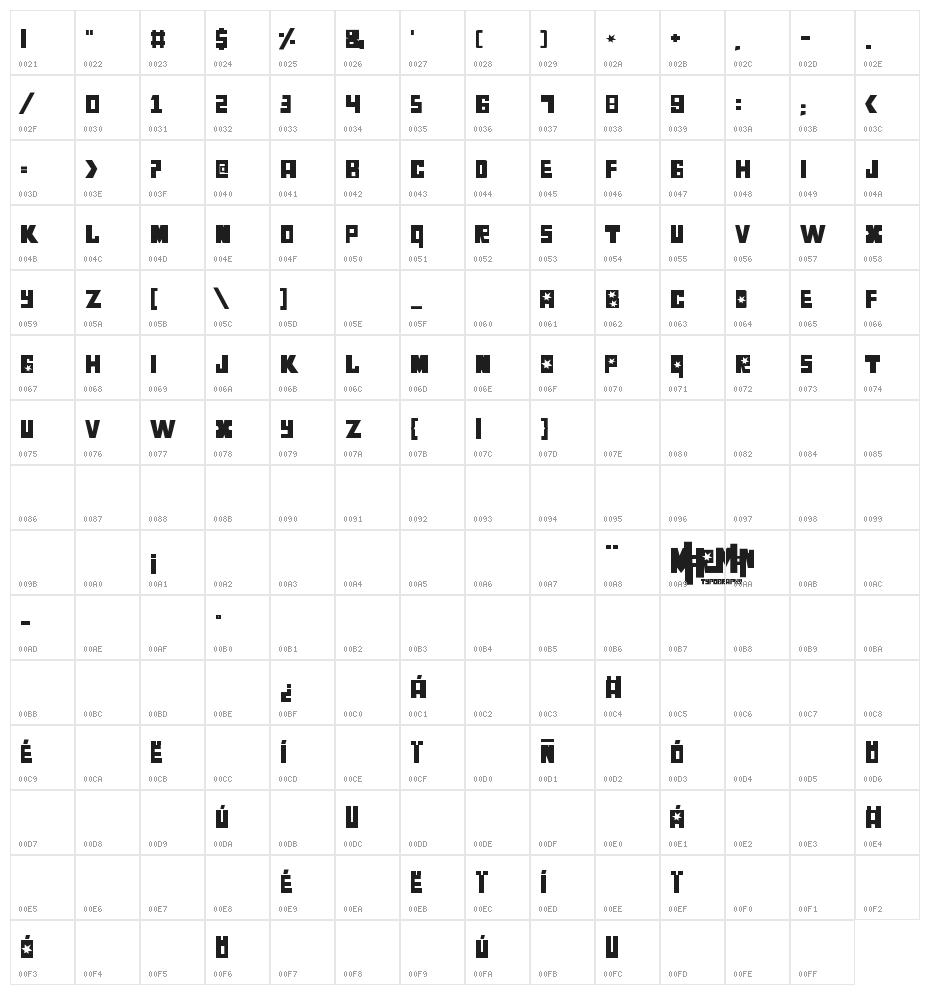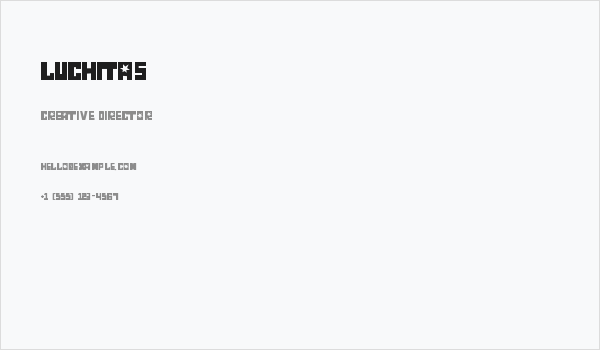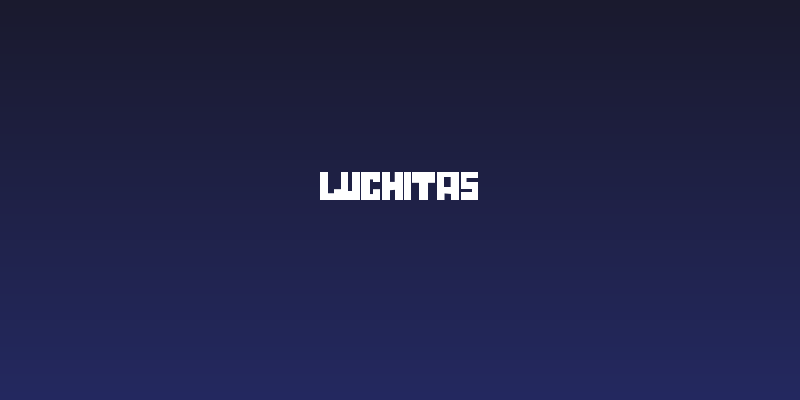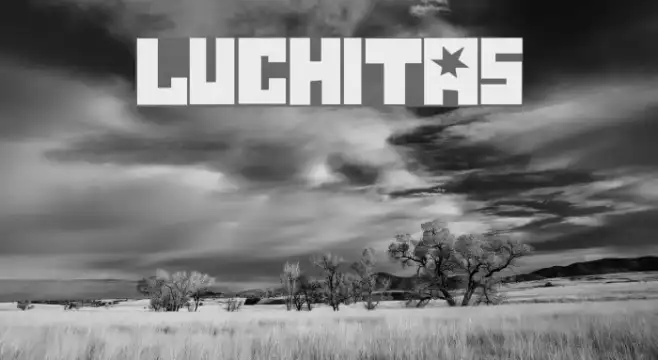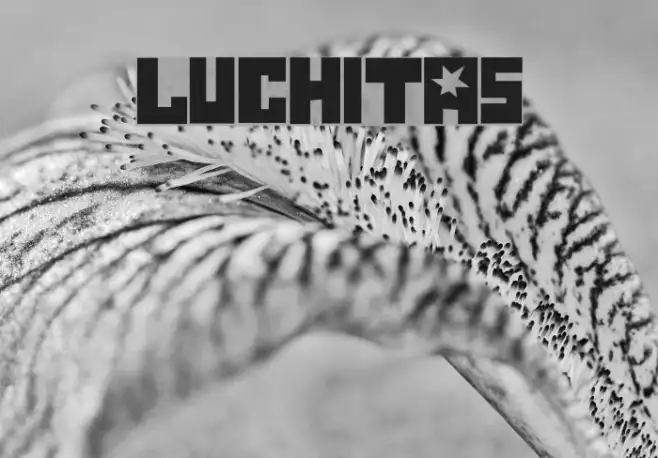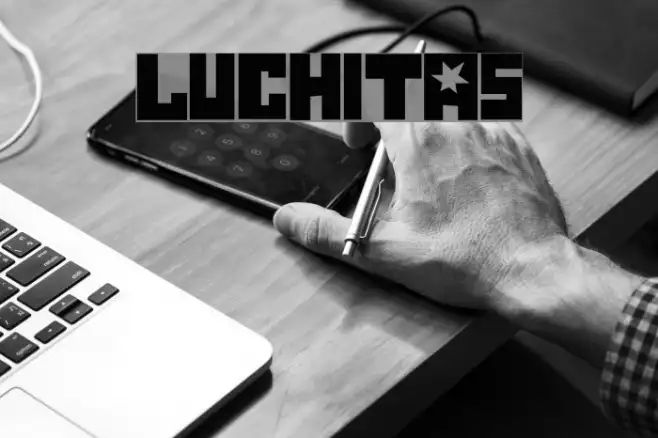
Luchitas Font
Luchitas Description
This bold, decorative font features a unique and playful design with star-shaped cutouts in some of the characters, adding a whimsical touch. The letters are blocky and geometric, with sharp angles and a strong presence. The uppercase and lowercase letters maintain a consistent style, while the numbers and special characters complement the overall aesthetic. The font's boldness makes it stand out, ideal for eye-catching designs.
| Proposed Projects | Ideal for posters, event flyers, children's book covers, and playful branding projects. |